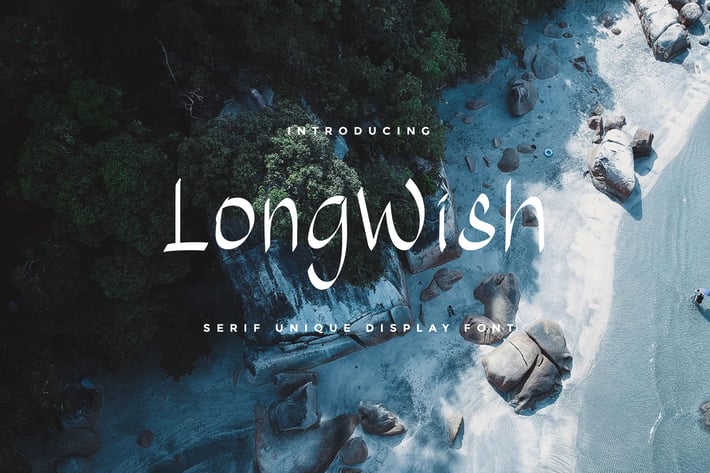
Long Wish Font
Proudly present Another unique display font
Basis Letter: A ñ Z and a ñ z
Number & Functional
Proudly present Another unique display font
Basis Letter: A ñ Z and a ñ z
Number & Functional